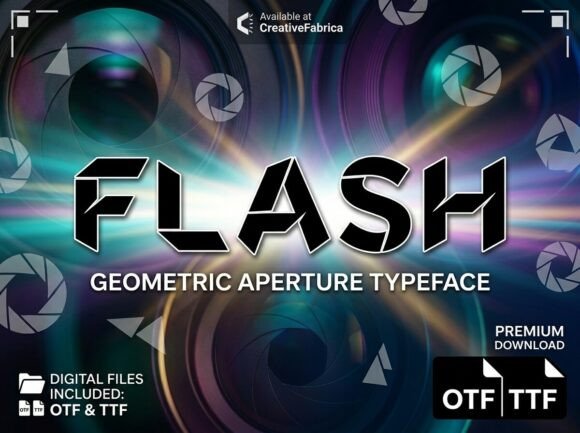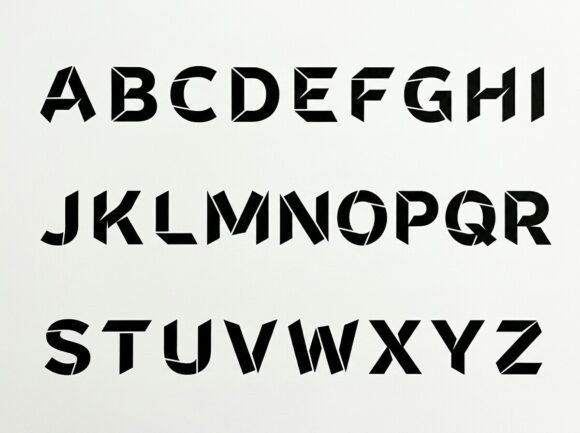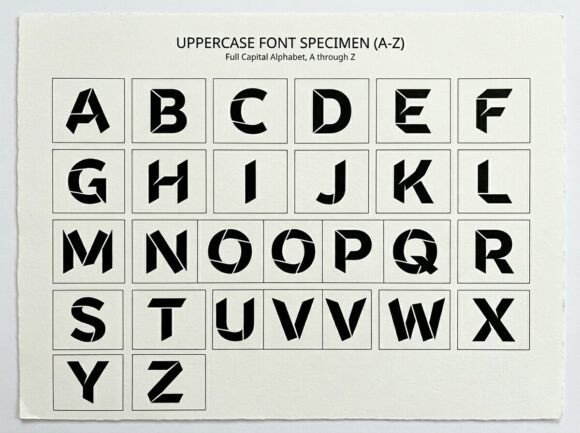
Introduction to Flash Font
Have you ever been working on a creative project and suddenly, you’re stuck on the perfect font? The words aren’t quite popping, and your design feels like it’s missing that one special element? This is where the magic of Flash Font comes in – a stunning decorative display font designed to be the center of attention.
Flash Font is more than just a font – it’s a design resource that can elevate your creative project to the next level. With its unique artistic elements and strong visual personality, this font is perfect for bold headlines, artistic logos, and creative packaging. Whether you’re working on a high-quality design or a simple free download, Flash Font is sure to add that extra oomph your project needs.
As a valuable addition to any designer’s toolkit, Flash Font offers a professional and polished finish, making it an essential design element for any creative project. With its transparent background and high-quality files, you can be sure that your design will stand out from the crowd.
Key Features of Flash Font
- Unique characteristic: Flash Font’s vector-based design ensures scalability without compromising on quality, making it ideal for large-scale designs.
Honest Review: Flash Font
As a designer, I’m always on the lookout for high-quality design resources that can elevate my creative projects. I recently came across Flash Font, a free download that caught my attention. Here’s my honest review.
- Unique style: Flash Font has a distinct, modern aesthetic that sets it apart from other fonts.
- High-quality design: The font is well-crafted, with crisp lines and smooth curves.
- Limited character set: Flash Font only includes a basic set of characters, which may not be sufficient for more complex projects.
- No bold or italic variants: This can make it difficult to create emphasis in certain situations.
Overall, Flash Font is a solid addition to any designer’s toolkit. While it has some limitations, its unique style and high-quality design make it a valuable resource for creative projects. If you’re looking for a free font to add some flair to your designs, Flash Font is definitely worth checking out.
Tips for Getting the Most Out of Flash Font
Flash Font is perfect for a variety of creative projects, including presentations, reports, business documents, and social media graphics. Its high-quality design and transparent background make it a valuable design resource for any project.